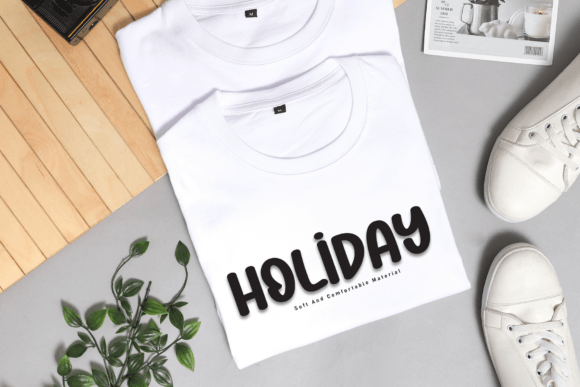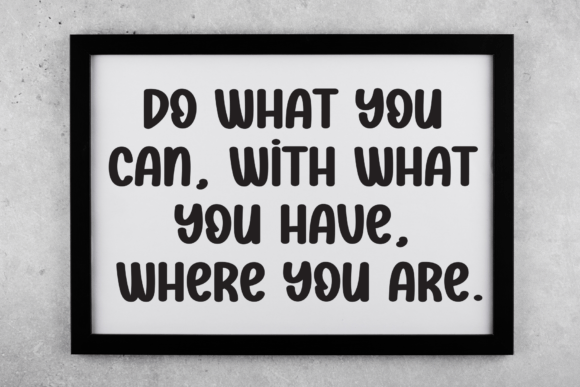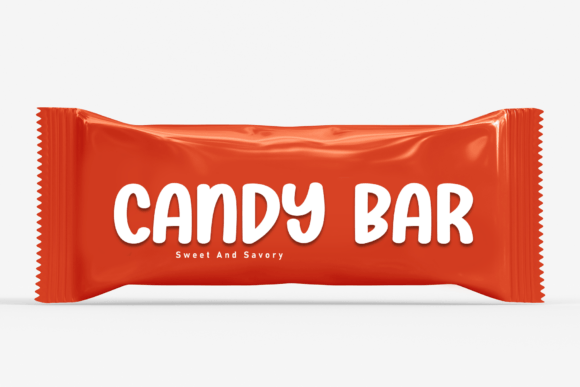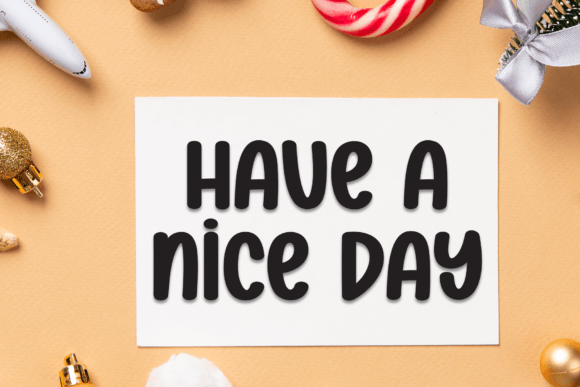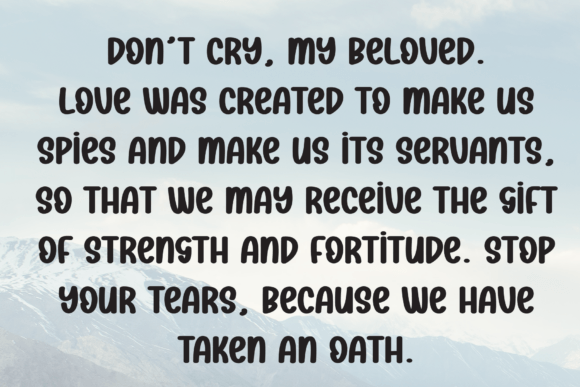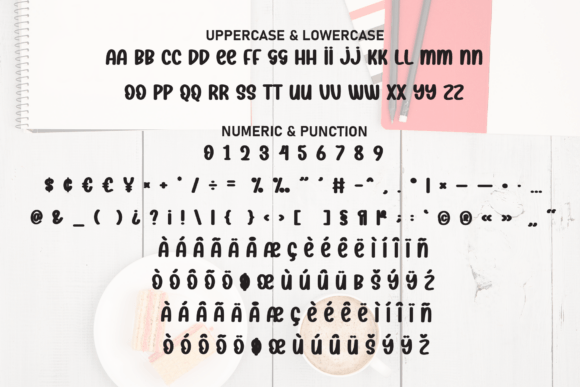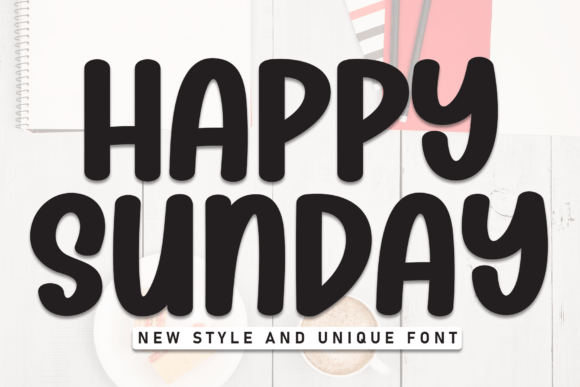
Introducing Happy Sunday Font: The Perfect Addition to Your Design Arsenal
Are you tired of using the same old fonts for your designs? Do you want to add a touch of playfulness and elegance to your projects? Look no further than Happy Sunday Font, a unique display font that’s sure to elevate your designs to the next level.
What is Happy Sunday Font?
Happy Sunday Font is a one-of-a-kind display font that’s designed to evoke a sense of lightheartedness and joy. With its playful and elegant vibe, this font is perfect for designers and crafters who want to add a dash of whimsy to their projects.
Characteristics of Happy Sunday Font
So, what makes Happy Sunday Font so special? Here are just a few of its key characteristics:
- Unique and eye-catching: Happy Sunday Font is a true showstopper, with a distinctive style that’s sure to grab attention.
- Playful and elegant: This font strikes the perfect balance between playfulness and sophistication, making it perfect for a wide range of design applications.
- Highly versatile: Whether you’re designing wedding invitations, custom cards, or social media graphics, Happy Sunday Font is the perfect choice.
Uses for Happy Sunday Font
So, what can you use Happy Sunday Font for? The possibilities are endless! Here are just a few ideas to get you started:
- Wedding invitations: Add a touch of whimsy and romance to your wedding invitations with Happy Sunday Font.
- Custom cards: Create one-of-a-kind greeting cards for birthdays, holidays, and other special occasions.
- Social media graphics: Use Happy Sunday Font to add a pop of personality to your social media graphics and posts.
- Branding and packaging: Add a touch of elegance and sophistication to your brand’s packaging and marketing materials.
Why Choose Happy Sunday Font?
With so many fonts to choose from, why should you choose Happy Sunday Font? Here are just a few reasons:
- Unique style: Happy Sunday Font is a true original, with a style that’s sure to set your designs apart.
- Ease of use: This font is easy to read and use, making it perfect for designers of all skill levels.
- High-quality design: Happy Sunday Font is designed with high-quality craftsmanship in mind, ensuring that your designs look professional and polished.
Tips for Using Happy Sunday Font
Here are a few tips for getting the most out of Happy Sunday Font:
- Use it sparingly: Because Happy Sunday Font is so eye-catching, it’s best to use it sparingly to avoid overwhelming your design.
- Pair it with complementary fonts: Pair Happy Sunday Font with complementary fonts to create a cohesive and visually appealing design.
- Experiment with different colors: Don’t be afraid to experiment with different colors and textures to add depth and interest to your design.